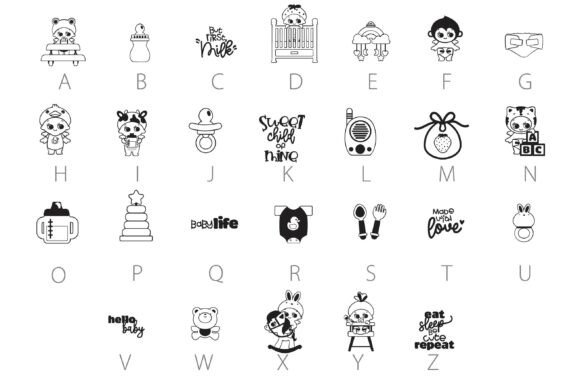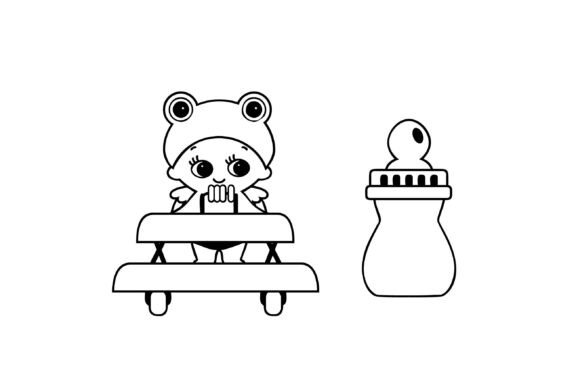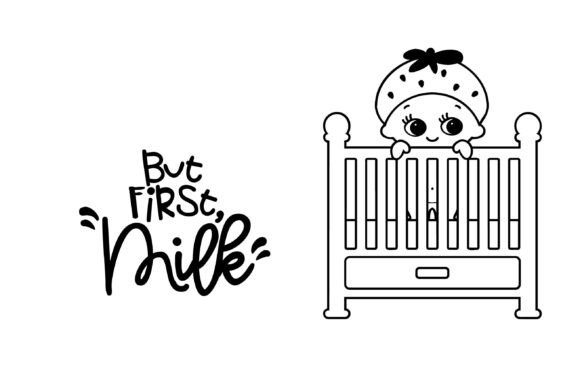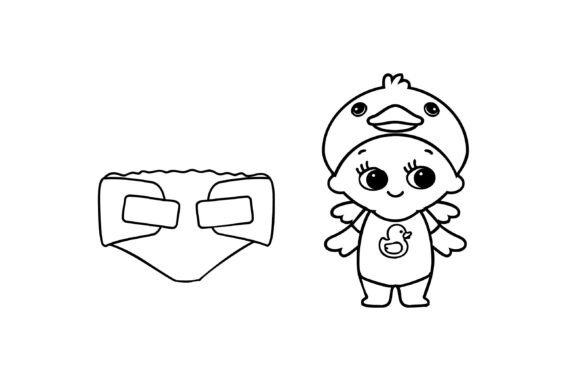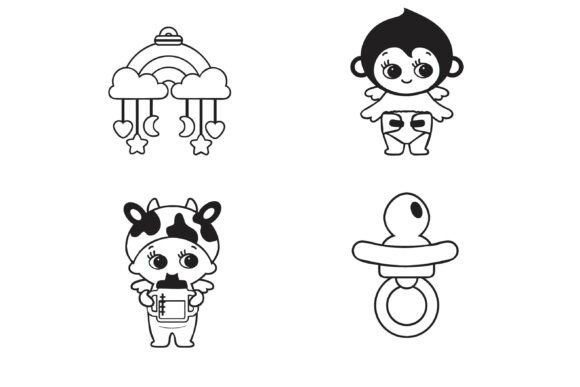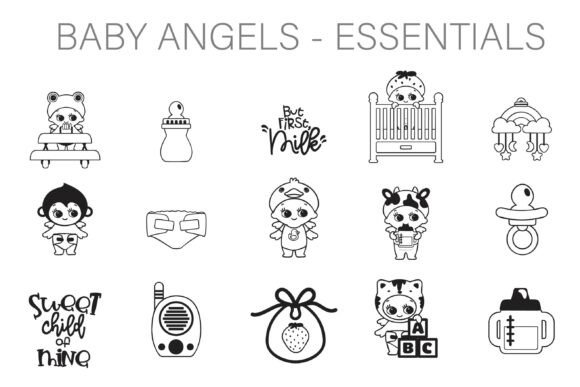
Baby Angels Essentials Dingbats Font: A Heartwarming Addition to Your Design Collection
Are you a designer, crafter, or DIY enthusiast looking for a unique and charming font to add a touch of sweetness to your projects? Look no further than Baby Angels Essentials, a delightful dingbat font that captures the tender moments of early childhood. This font is a treasure trove of precious icons, phrases, and illustrations that will make your digital scrapbooking, milestone cards, baby announcements, and nursery products truly special.
What’s Inside Baby Angels Essentials?
Baby Angels Essentials is a carefully curated collection of icons, phrases, and illustrations that celebrate the joys of parenthood and childhood. The font features a range of nursery must-haves, including:
- Baby monitors
- Bottles
- Diapers
- Cribs
- Blocks
- Mealtimes
But that’s not all. The font also includes adorable illustrations of “Baby Angels” engaging in daily routines, such as playtime with blocks and mealtimes. These illustrations are sure to melt your heart and add a touch of whimsy to your designs.
Hand-Lettered Phrases for a Personal Touch
To add an extra layer of sentimentality to your designs, Baby Angels Essentials includes beautiful hand-lettered phrases, such as:
- “Sweet Child of Mine”
- “But First, Milk”
These phrases are perfect for adding a personal touch to your projects, whether you’re creating a milestone card, baby announcement, or nursery decor.
Aesthetic and Design Features
Baby Angels Essentials boasts a consistent, bold-line aesthetic with high-contrast details, making it a standout choice for designers and crafters. The font’s unique blend of angelic charm and nursery must-haves ensures that your designs will be both visually appealing and emotionally resonant.
Perfect for Digital Scrapbooking and More
Baby Angels Essentials is an extraordinary choice for a variety of design applications, including:
- Digital scrapbooking
- Milestone cards
- Baby announcement stationery
- Artisanal nursery products
Whether you’re a professional designer or a DIY enthusiast, this font is sure to become a go-to in your collection.
Why Choose Baby Angels Essentials?
So why choose Baby Angels Essentials over other dingbat fonts? Here are just a few reasons:
- Unique and charming illustrations: The font’s illustrations are both adorable and distinctive, ensuring that your designs will stand out from the crowd.
- Hand-lettered phrases: The inclusion of hand-lettered phrases adds an extra layer of sentimentality and personality to your designs.
- Consistent aesthetic: The font’s bold-line aesthetic and high-contrast details ensure a cohesive look that will elevate your designs.
- Versatile: Baby Angels Essentials is perfect for a range of design applications, from digital scrapbooking to nursery decor.
In conclusion, Baby Angels Essentials is a heartwarming dingbat font that is sure to capture the tender moments of early childhood. With its unique illustrations, hand-lettered phrases, and consistent aesthetic, this font is an excellent choice for designers and crafters looking to add a touch of sweetness to their projects.